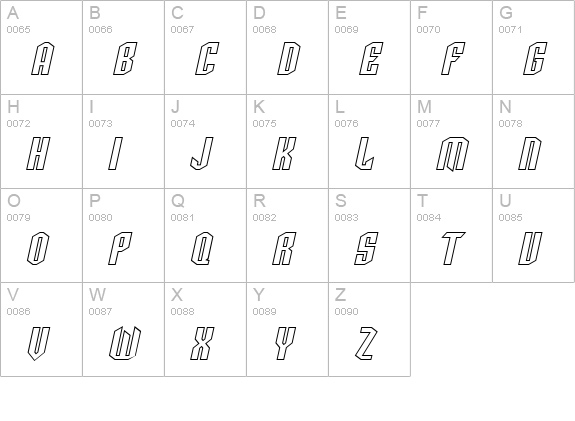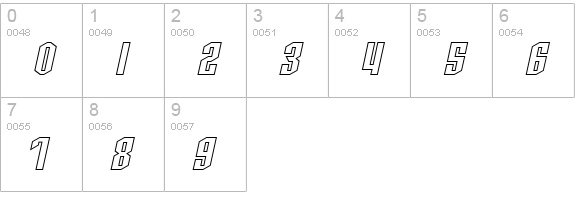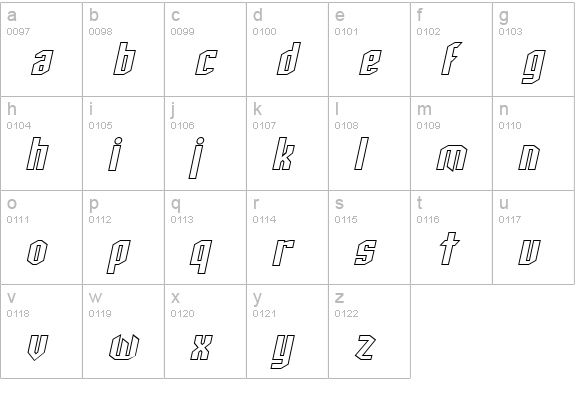
SF Archery Black Outline Oblique Font Details
SF Archery Black Outline Oblique is a maximum-weight, dramatic, italic variant in the SF typeface family \xE2\x80\x94 well suited to maximum-impact headlines, posters, and packaging.
SF Archery Black Outline Oblique is a stunning font that combines the timeless elegance of archery with a contemporary twist. With its sleek lines and bold strokes, this font is perfect for adding a touch of sophistication to any design project. Whether you're creating eye-catching posters, stylish logos, or captivating social media graphics, SF Archery Black Outline Oblique will effortlessly elevate your work to new heights. What sets this font apart is its unique oblique style, which adds a dynamic and modern feel to any text. The black outline adds a sense of depth, making each letter stand out with a striking presence. The combination of thin and thick lines creates a balanced look that is both visually appealing and highly legible. One of the best things about SF Archery Black Outline Oblique is that it is freely available to download at FontsMarket.com. This means that you can easily incorporate this font into your projects without any restrictions or limitations. Whether you're a professional designer or a hobbyist, having access to high-quality fonts like SF Archery Black Outline Oblique can truly enhance your creative endeavors. With its versatility and artistic flair, SF Archery Black Outline Oblique is a font that can be used in a wide range of design applications. From branding to advertising, this font will make a lasting impression on your audience. Its sleek and modern aesthetic will ensure that your message stands out from the crowd and leaves a lasting impact. In conclusion, SF Archery Black Outline Oblique is a must-have font for anyone looking to add a touch of sophistication and modernity to their designs. Its free availability on FontsMarket.com makes it accessible to everyone, allowing you to unleash your creativity without any limitations. Whether you're a professional or a beginner, this font will elevate your work and make it truly remarkable.